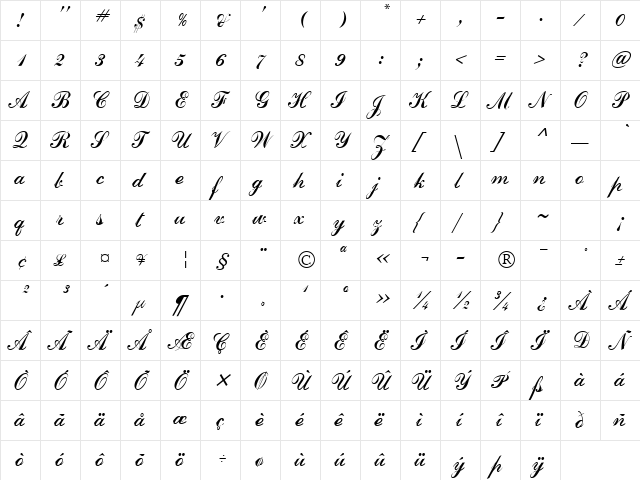
ScriptFormal Italic
Design Context for ScriptFormal Typeface
ScriptFormal flows with the natural rhythm of handwritten lettering, making it ideal for designs that call for warmth and personal expression.
Font Pairing: Combine ScriptFormal with a simple geometric sans for maximum contrast — the tension between flowing curves and clean structure is a classic typographic pairing.
Pro Tip: Pair ScriptFormal with a clean sans-serif for supporting text. The contrast between fluid script and geometric structure creates an elegant typographic hierarchy.